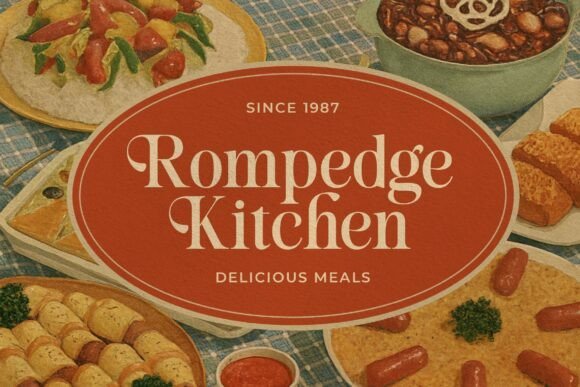
Introducing Sherly Kitchen, a charming serif font that blends vintage warmth with modern elegance. Inspired by retro food packaging and classic diner menus, this typeface serves up a delightful taste of nostalgia perfect for brands that want to feel both timeless and tasteful.